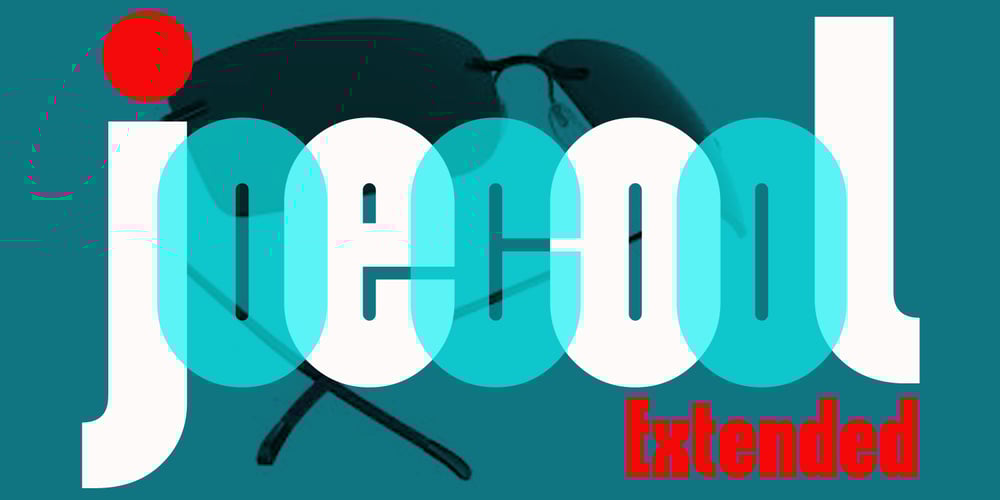
Joe Cool
Joe Cool font
Joe Cool Font Family was designed by Keith Tricker and published by Studio K. Joe Cool contains 6 styles and family package options. Joe Cool is a bold geometric sans with minimal counters designed to achieve the maximum weight, solidity and impact on the page. Joe Cool Extended was actually created first, then it seemed like a good idea to add progressively more compact versions for added variety and versatility. See also Gravitas, my Bauhaus inspired font family which explores similar territory.